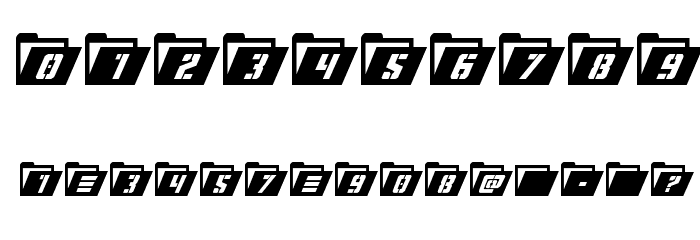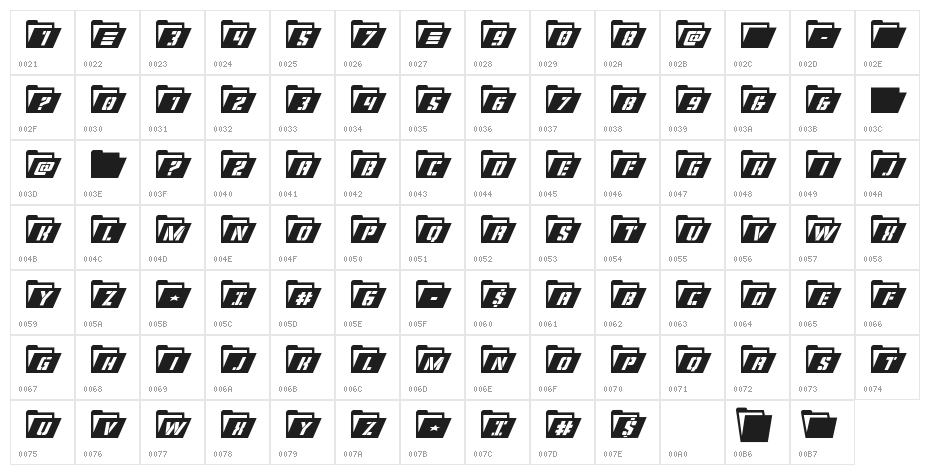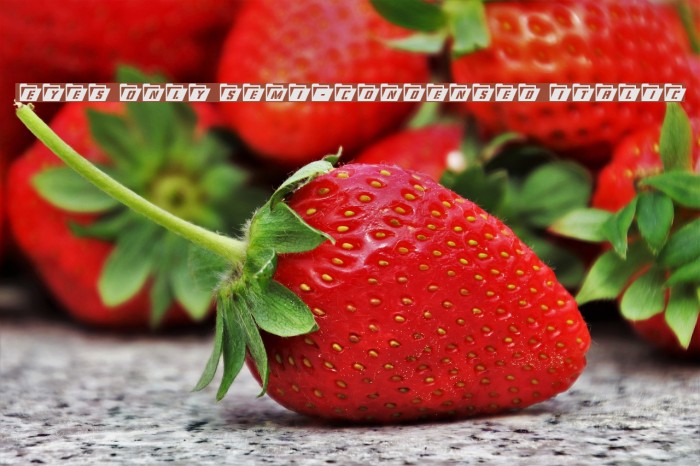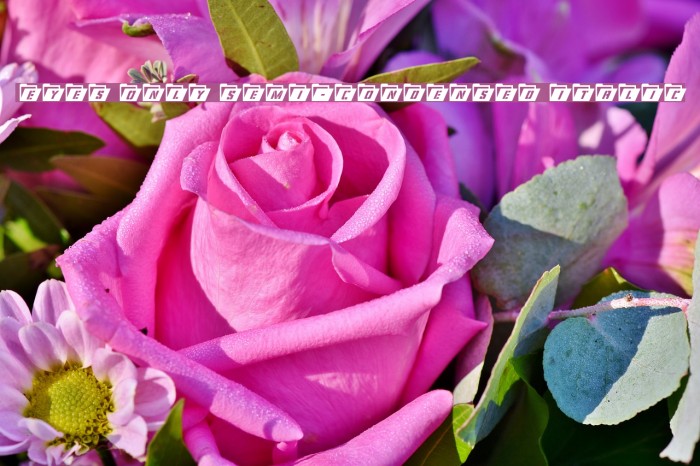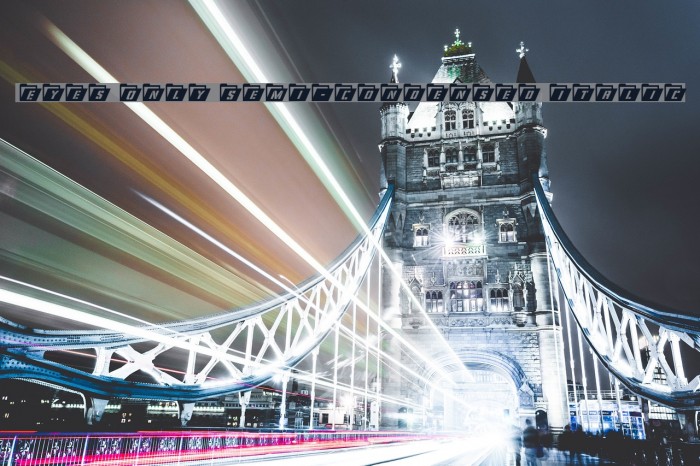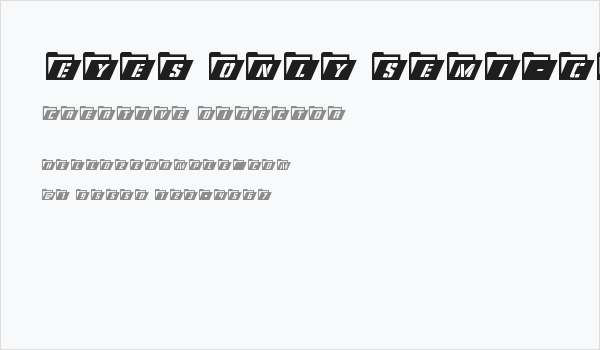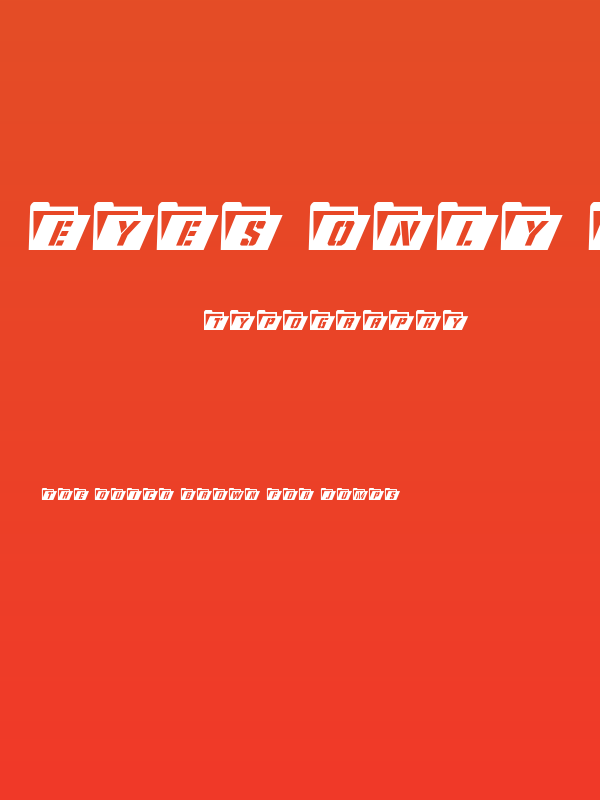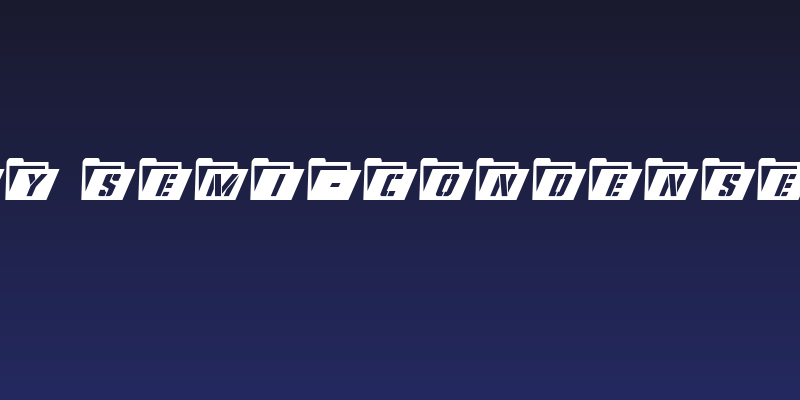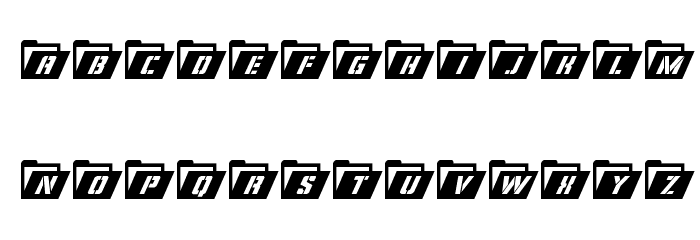
Eyes Only Semi-Condensed Italic Font
Eyes Only Semi-Condensed Italic Description
This font features a bold, italicized style with a semi-condensed width, giving it a dynamic and forward-leaning appearance. The characters are enclosed within a unique folder-like shape, adding a distinctive and modern touch. The strokes are thick, providing high contrast and making the letters stand out prominently. The overall design is sleek and contemporary, suitable for projects that require a strong visual impact. The character spacing is tight, enhancing the compact and cohesive look of the text.
| Proposed Projects | Ideal for branding, logos, posters, and any design needing a modern, impactful typeface. |